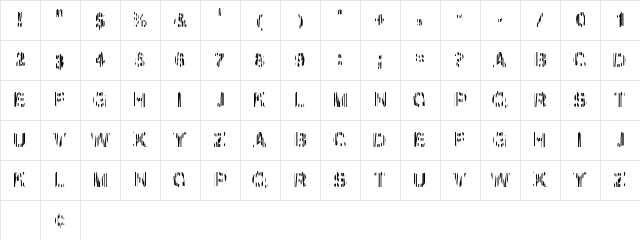
Ollie Guilty Regular Free Font
Ollie Guilty Regular
Design Context for Ollie Guilty
Ollie Guilty is a composed and adaptable typeface that performs quietly and consistently across a wide range of design contexts.
Pro Tip: Use Ollie Guilty in both headline and body roles to test its range before committing to a single application.